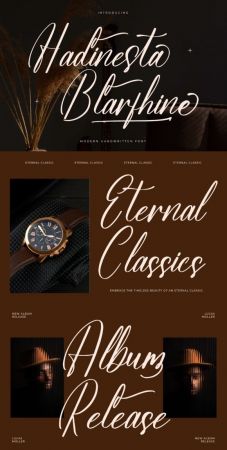
Hadinesta Blarfhine is a dazzling script font that epitomizes elegance and charm. Its graceful flourishes and intricate details captivate the eye, making it perfect for wedding invitations, branding, and signage. With its timeless appeal and delicate curves, Hadinesta Blarfhine adds a touch of sophistication to any design project.